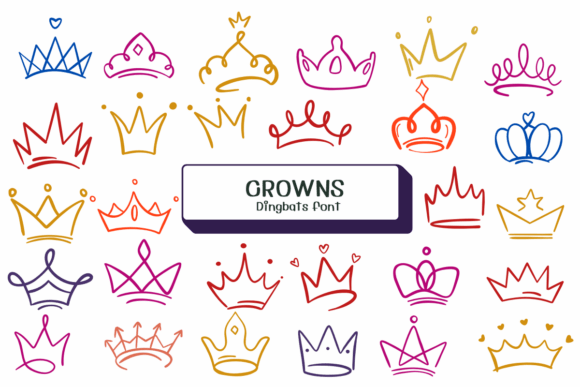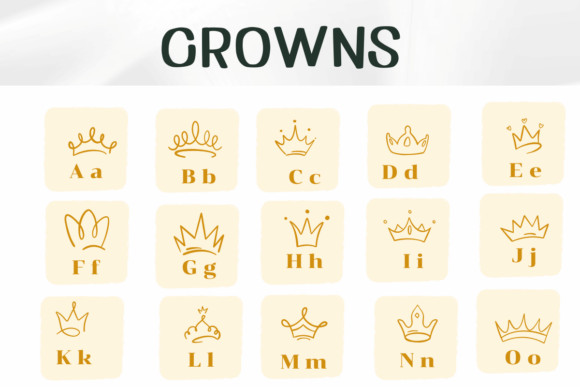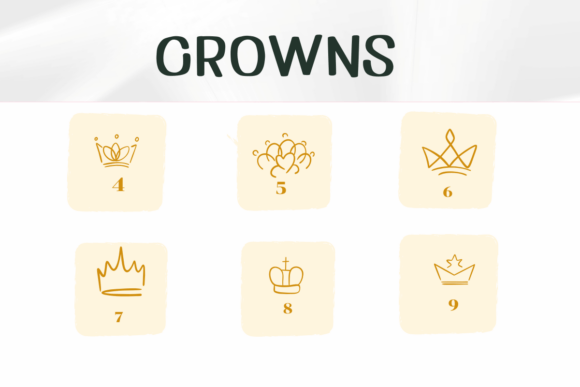
Crowns Font
About the Crowns Font
Meet Crowns Font, a stunning font that brings a touch of elegance and professionalism to any design. Crowns is a dingbats font with a royal theme. This font can enhance your creative projects such as wedding invitations, DIY, crafts, decorations, logos, and many other creative ideas.
Crowns excels in applications requiring a touch of regal elegance, such as logos for luxury brands, wedding stationery, or decorative elements on packaging. Its ornate detail works best in smaller-scale uses where individual glyphs can be appreciated; it’s less suitable for body text or lengthy passages.
For optimal visual balance, pair Crowns with a clean sans-serif like Helvetica Neue for a modern contrast, or a classic serif such as Garamond for a more traditional feel. A script font with a similarly elegant, but less dense, design could also create a harmonious pairing.
The overall personality of Crowns is sophisticated and celebratory, conveying a sense of refined luxury and special occasion. Avoid using it in contexts requiring high readability or a minimalist aesthetic.
Crowns Font Usage Examples
Crowns Font Example